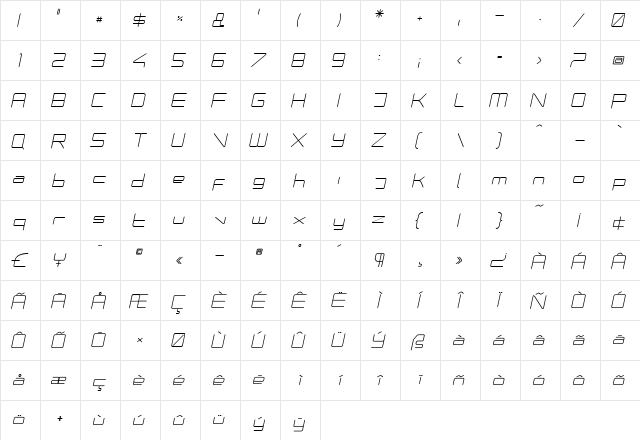
PhutureRndClsd Italic
Design Context for PhutureRndClsd Typeface
PhutureRndClsd offers clean, dependable letterforms without strong stylistic allegiance, making it a practical choice for designers who need flexibility. The slanted form adds forward momentum and visual energy.
Pro Tip: Try PhutureRndClsd for annotation and caption copy alongside an upright companion — the contrast in angle creates a dynamic but ordered typographic system.